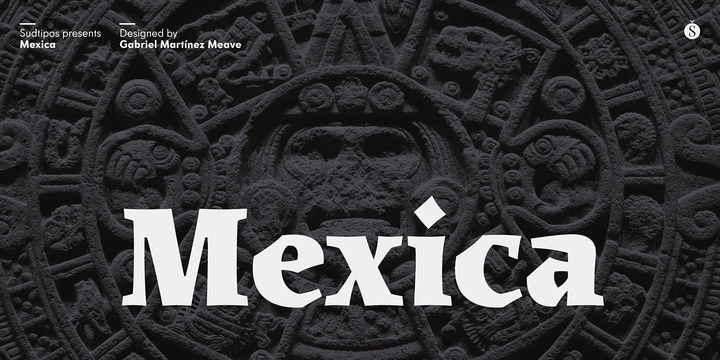
Mexica Font
Mexica Font is perfect for cultural heritage branding, traditional Mexican restaurant logos, artisanal product packaging, authentic cultural event materials, heritage tourism marketing, indigenous art projects, traditional craft branding, cultural festival graphics, authentic cuisine labels, and ancestral celebration communications.
What makes Mexica Font so exciting is its rich cultural heritage that captures the essence of ancient Mexican traditions while maintaining contemporary functionality and professional appeal. This distinguished typeface embodies ancestral wisdom and cultural pride, creating typography that honors indigenous heritage while communicating authenticity, tradition, and the timeless beauty of Mexican cultural identity.
The Mexica Font family includes light, regular, medium, bold, and black weights, complete with cultural design features, traditional styling elements, and heritage-inspired characteristics that provide designers with comprehensive tools for creating authentic and memorable typography that celebrates the richness of Mexican cultural traditions.
The culturally inspired letterforms of Mexica Font showcase traditional elegance with ancestral character that creates instant recognition of cultural authenticity and heritage quality. Each character displays careful attention to maintaining the cultural integrity that defines traditional Mexican artistry while ensuring contemporary readability and professional versatility. The font's heritage construction and cultural spacing contribute to its authentic appearance and traditional appeal.
Cultural organizations and heritage-focused brands consistently choose Mexica Font for projects requiring authentic character and traditional sophistication. The comprehensive character set includes uppercase and lowercase letters, numerals, extensive punctuation, international accents, and culturally-inspired elements that provide complete support for heritage branding applications and authentic cultural design compositions.
The cultural versatility of Mexica Font ensures exceptional performance across both traditional print and modern digital platforms. Whether developing authentic brand identities, creating cultural marketing materials, or designing heritage celebration graphics, this remarkable typeface delivers consistent authenticity that resonates with audiences seeking genuine cultural connection and traditional artistic expression.